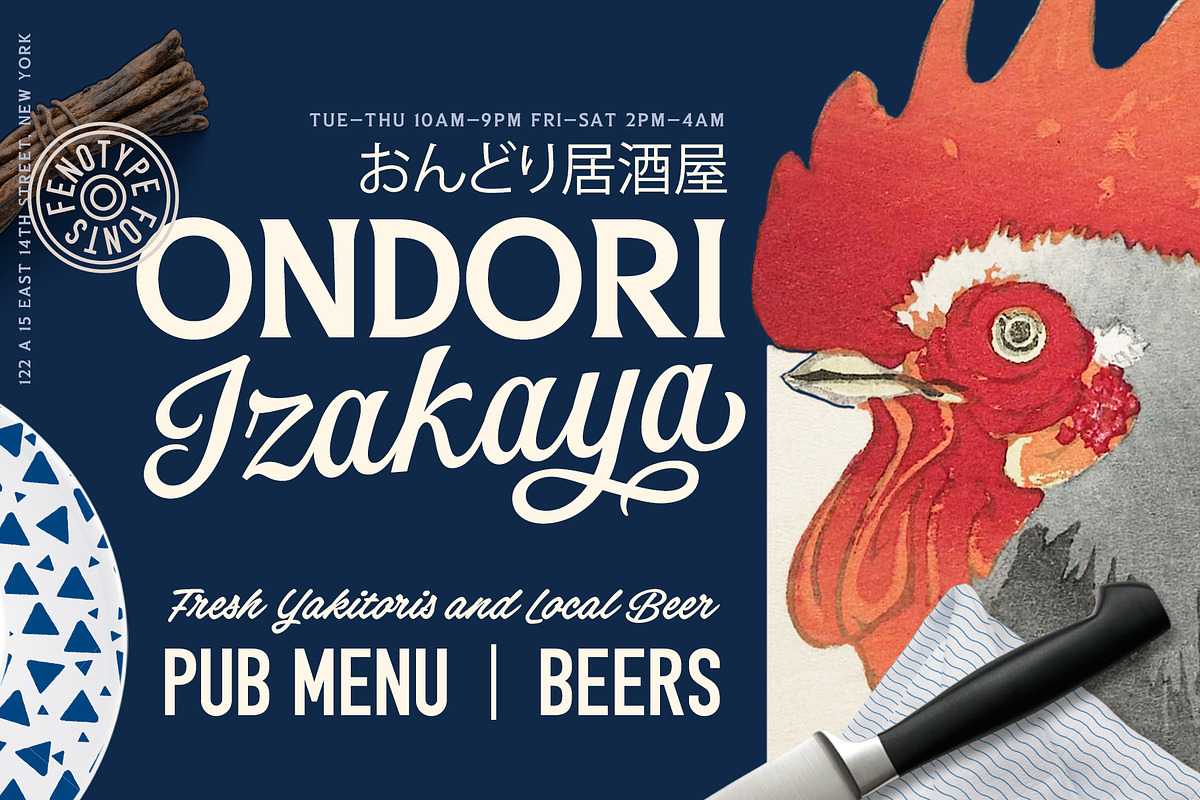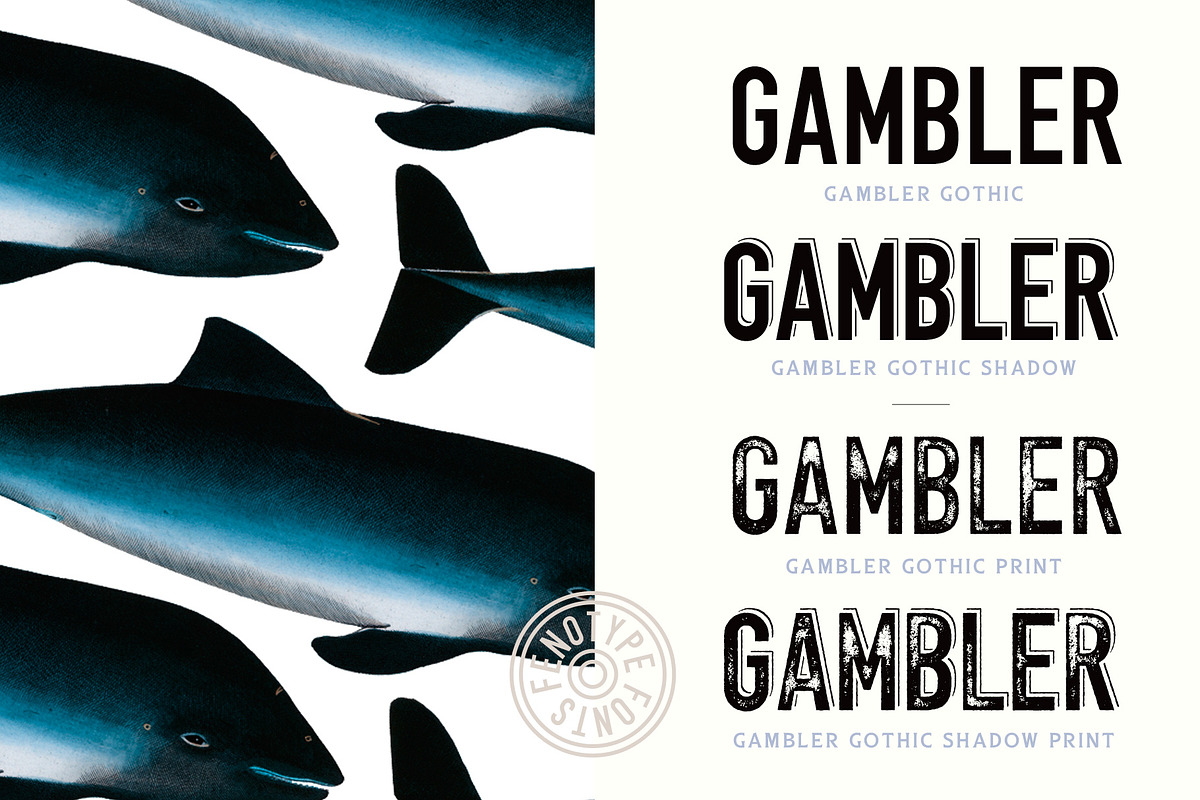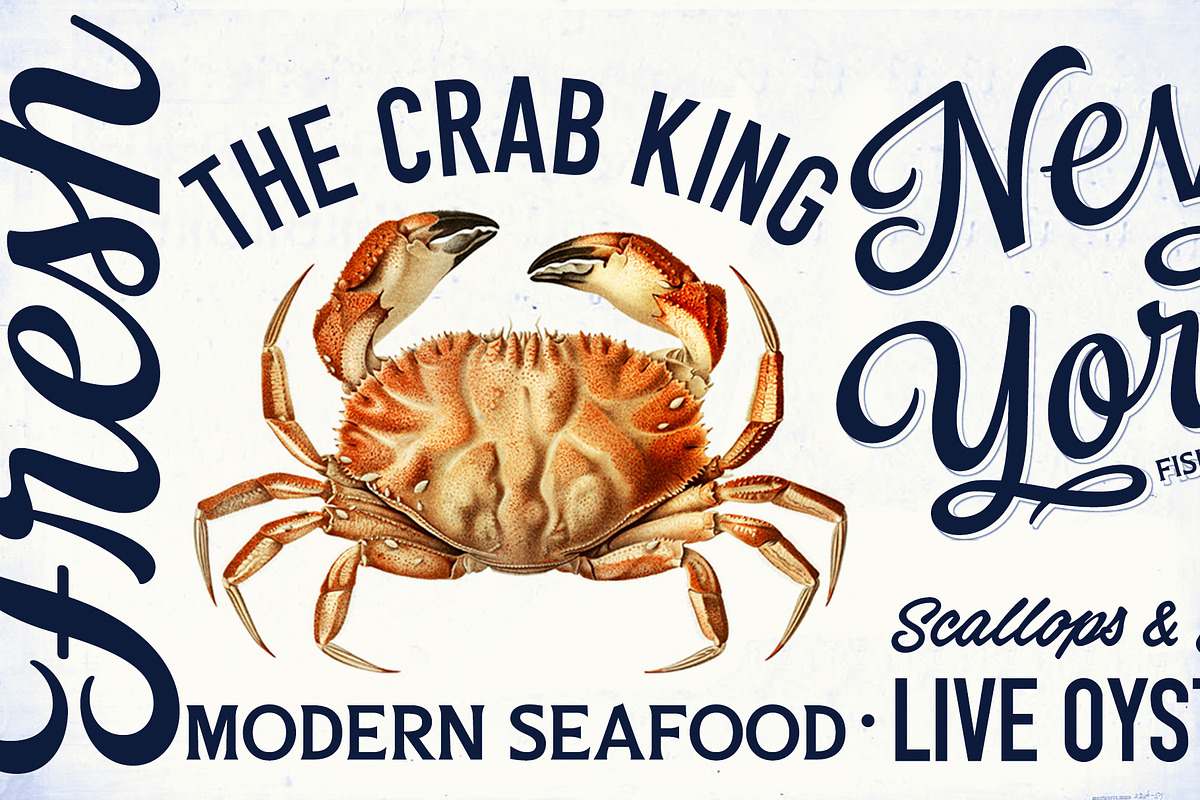
Gambler Gothic
Gambler Gothic is a rigid condensed sans serif that comes in two styles: Regular and Shadow. Gambler Gothic Shadow has a narrow lining giving a three dimensional expression to the font.